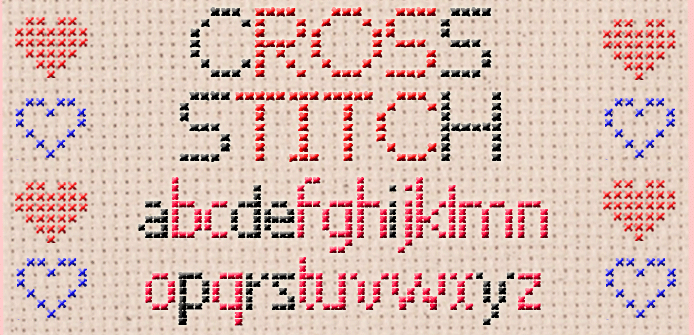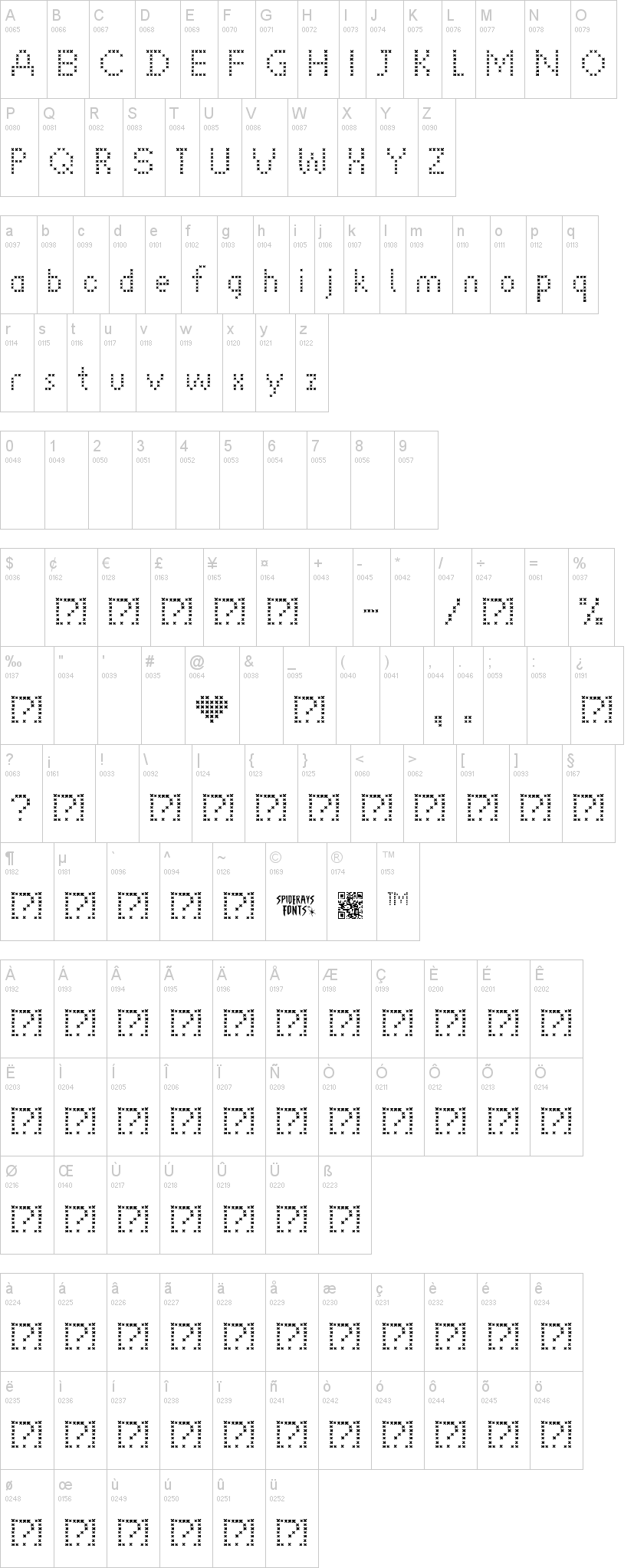
Note of the authorOne of my first typefaces from 2011 where I started to use a grid sections of similar shaped images for the design process by turning off or on locations for the stems and crossbars I guess this was the precursor for my ALPHABRIX typeface this time BRIX instead of STITCHES were used to the same effect.